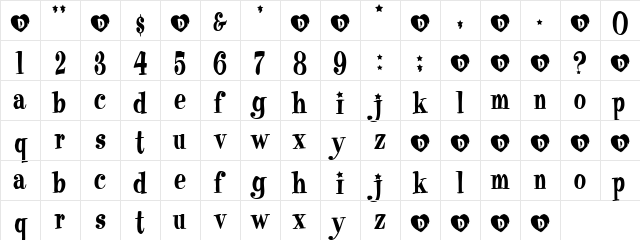
Pretty Baby Regular
Design Context for Pretty Baby
Pretty Baby is a composed and adaptable typeface that performs quietly and consistently across a wide range of design contexts.
Pro Tip: Use Pretty Baby in both headline and body roles to test its range before committing to a single application.